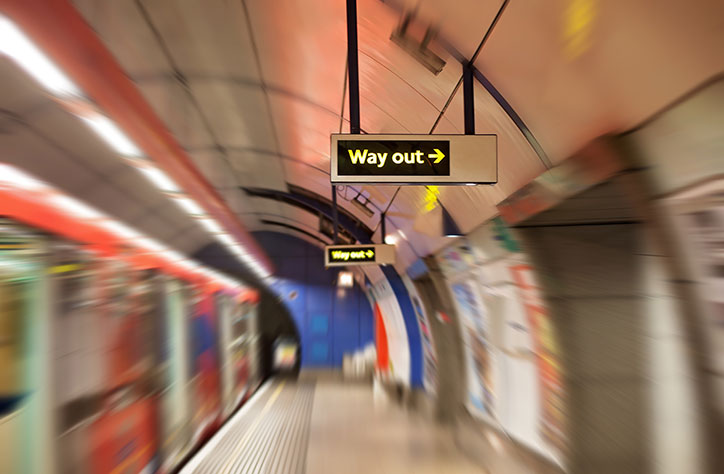
Font research study finds the UK's most recognisable and trustworthy typefaces
Times New Roman and Comic Sans are among the most trustworthy fonts, according to a new study by printing company Solopress. The survey was commissioned to investigate the UK public’s perception of fonts.
Of the 1,000 people surveyed, one in 12 said Comic Sans was the most trustworthy font but Times New Roman was the most trusted.
Arial was named the most recognisable typeface, with 33% of people identifying it.
Only 5% of people could correctly pick Johnston as the font used on the London Underground, but among Londoners this rose to 23%. Just 4% could identify the Transport typeface used on most road signs.
However 47% of the group could pick out the font used by the BBC, with recognition highest among those aged over 55. Those aged between 35 – 44 recognised Google’s typeface best, and younger adults between 18 – 24 correctly said Helvetica was the font used by Facebook.